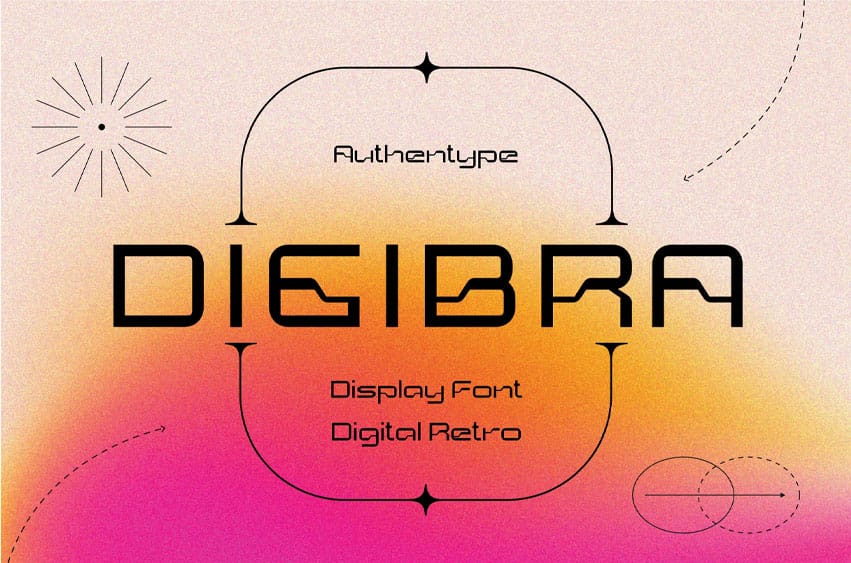
Digibra Font Digital retro display font from Digibra inspired by the Bagerich font “Baunk”. Retro digital display font Digibra has a special and very whimsical letterform that reinforces the feel of an old digital concept but is very appealing for today.
- Standard glyphs uppercase and lowercase letters
- Numerals, a large range of punctuation and ligatures.